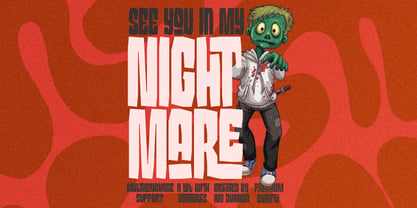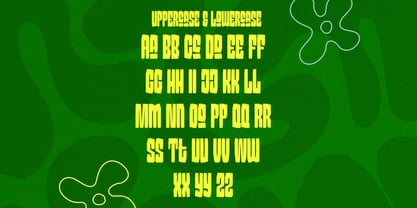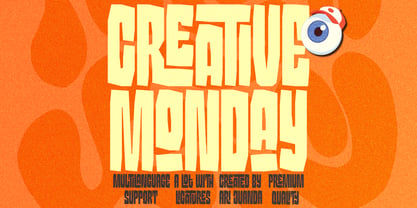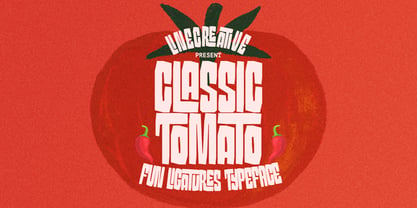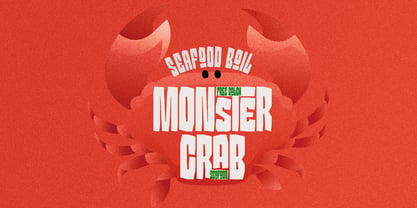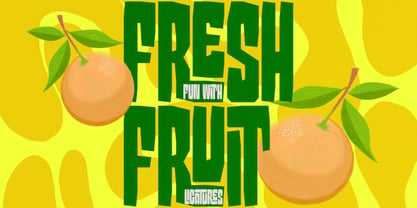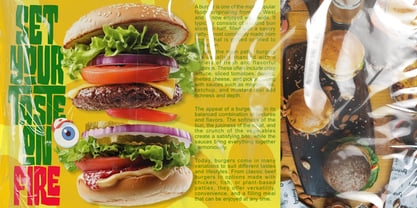
Classic tomato
by Linecreative
The Classic tomato Font Family was designed by Ari Juanda and published by Linecreative. Classic tomato contains 1 styles. More about this family
Classic tomato is a bold and expressive display typeface designed to deliver a strong and eye-catching visual impact. With its thick, solid letterforms and slightly playful proportions, this font is perfect for designs that aim to stand out and grab attention instantly, such as posters, branding, headlines, and merchandise. One of the key features of Classic tomato is its rich set of ligatures, allowing letters to connect in unique and creative ways. These ligatures enhance the overall look of the typography, making each word feel more dynamic, stylish, and full of personality without losing readability. Inspired by fun and quirky themes, Classic tomato also carries a playful character as seen in its visual presentation, including cartoon-style elements like the zombie illustration. This adds a layer of entertainment and uniqueness, making the font especially suitable for creative, gaming, horror-light, or youth-oriented designs. In addition, Classic tomato supports multilingual characters, making it versatile for global use. Whether you're creating bold branding, vibrant posters, or standout digital content, this font combines strength, creativity, and flexibility to elevate your design with a premium-quality feel.
Designers: Ari Juanda
Foundry: Linecreative